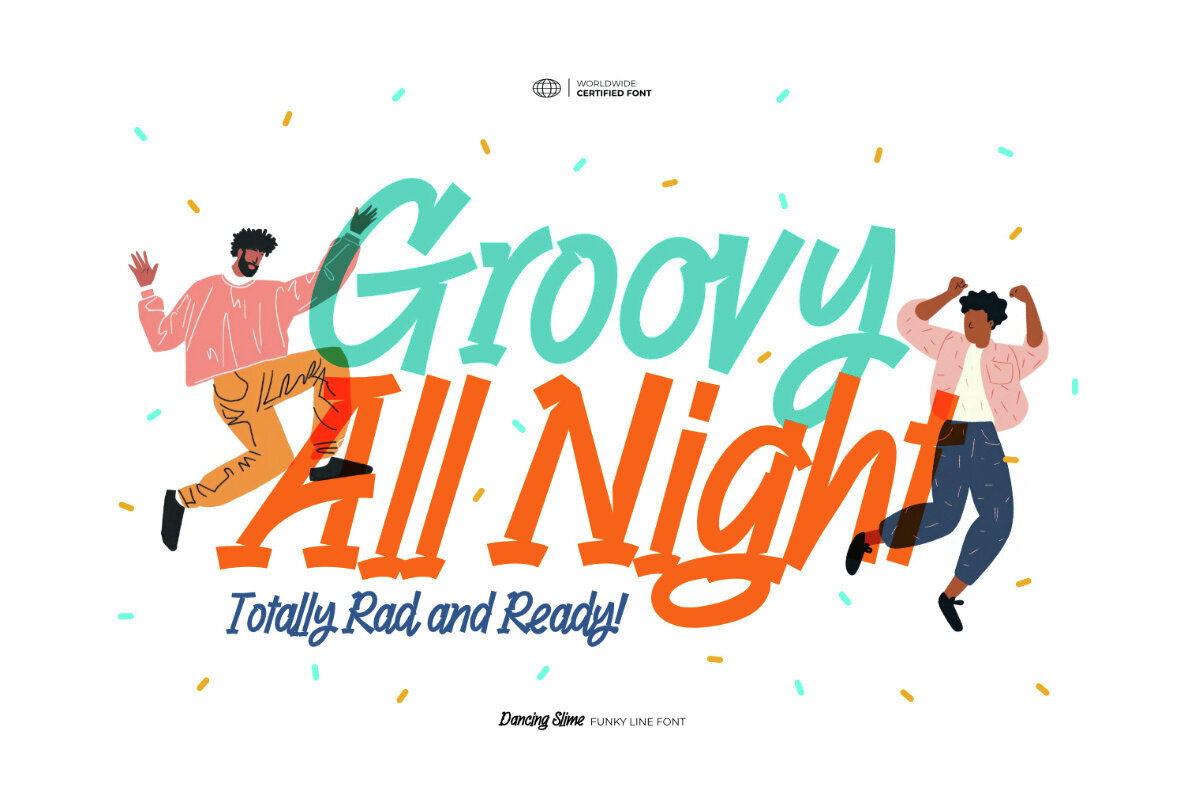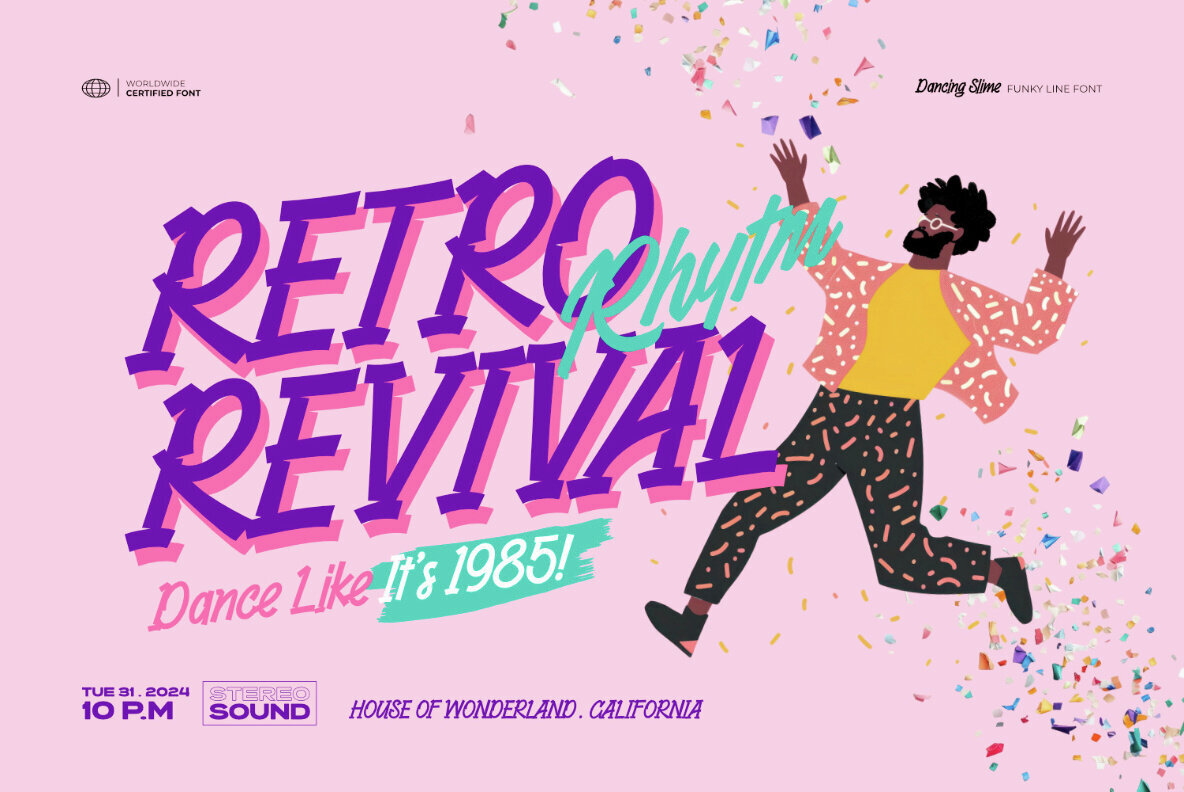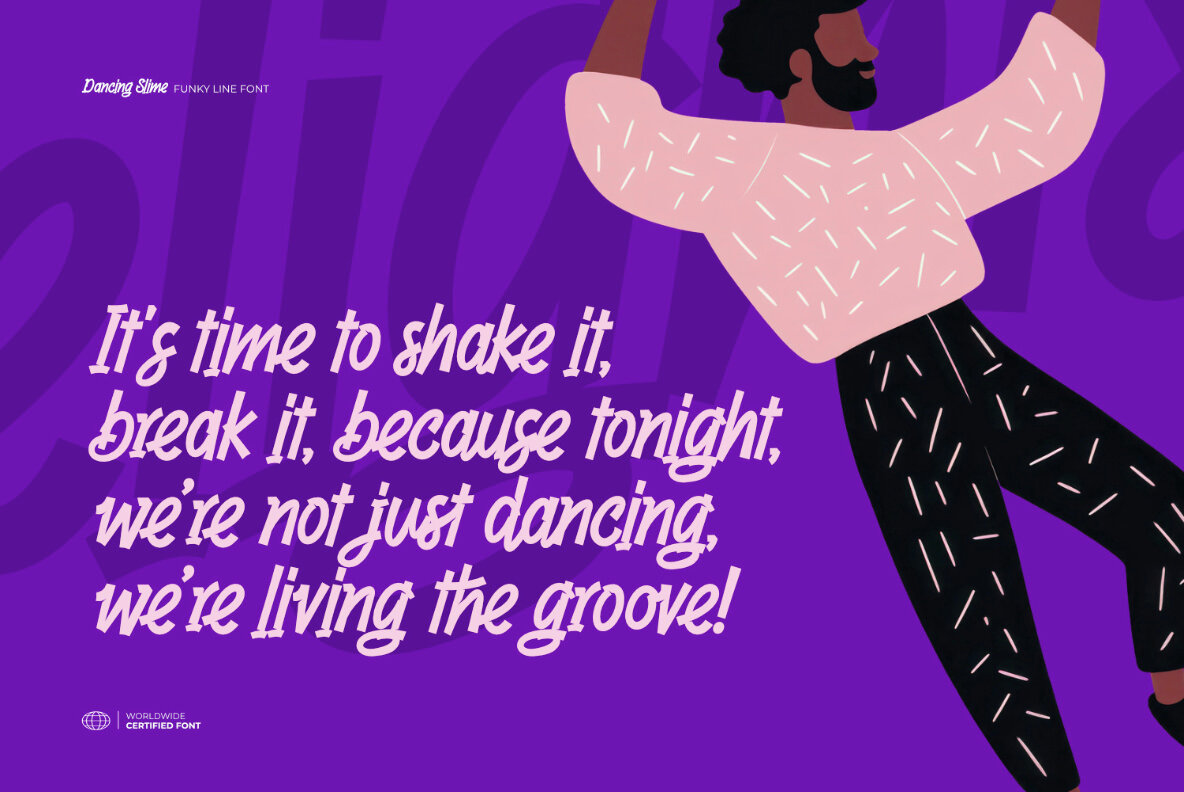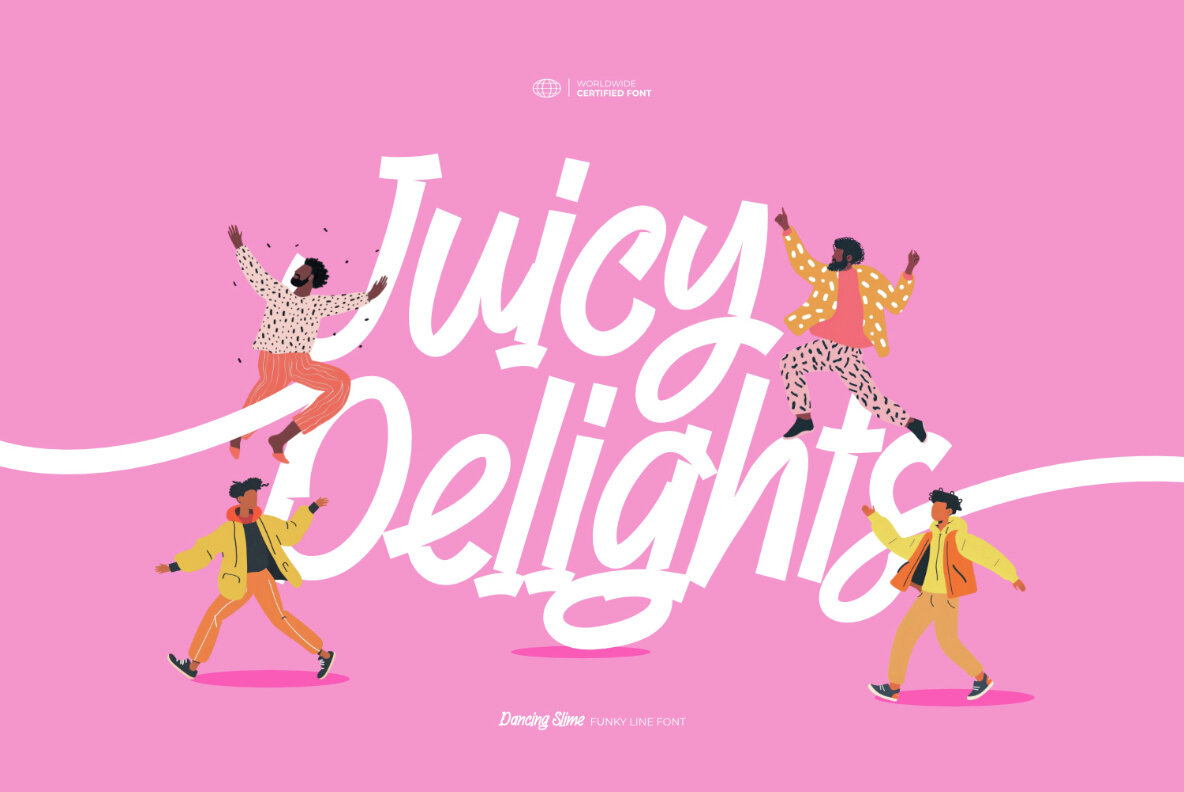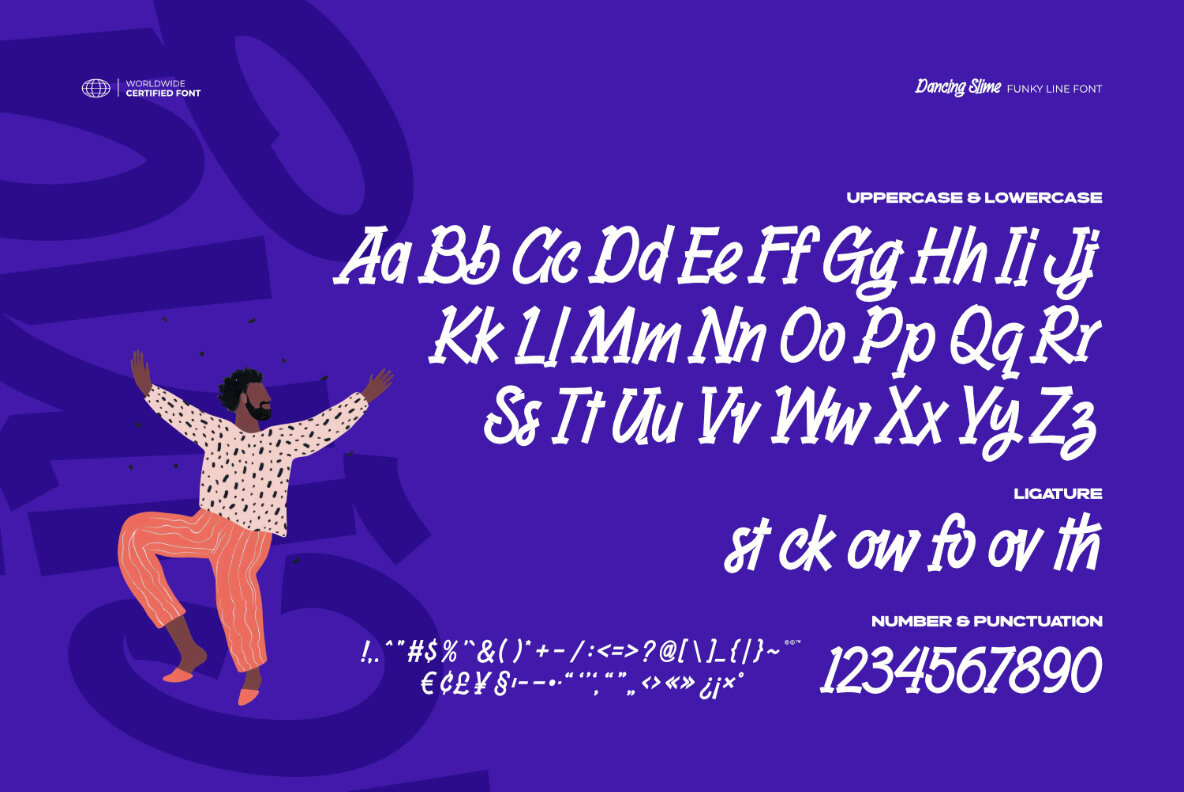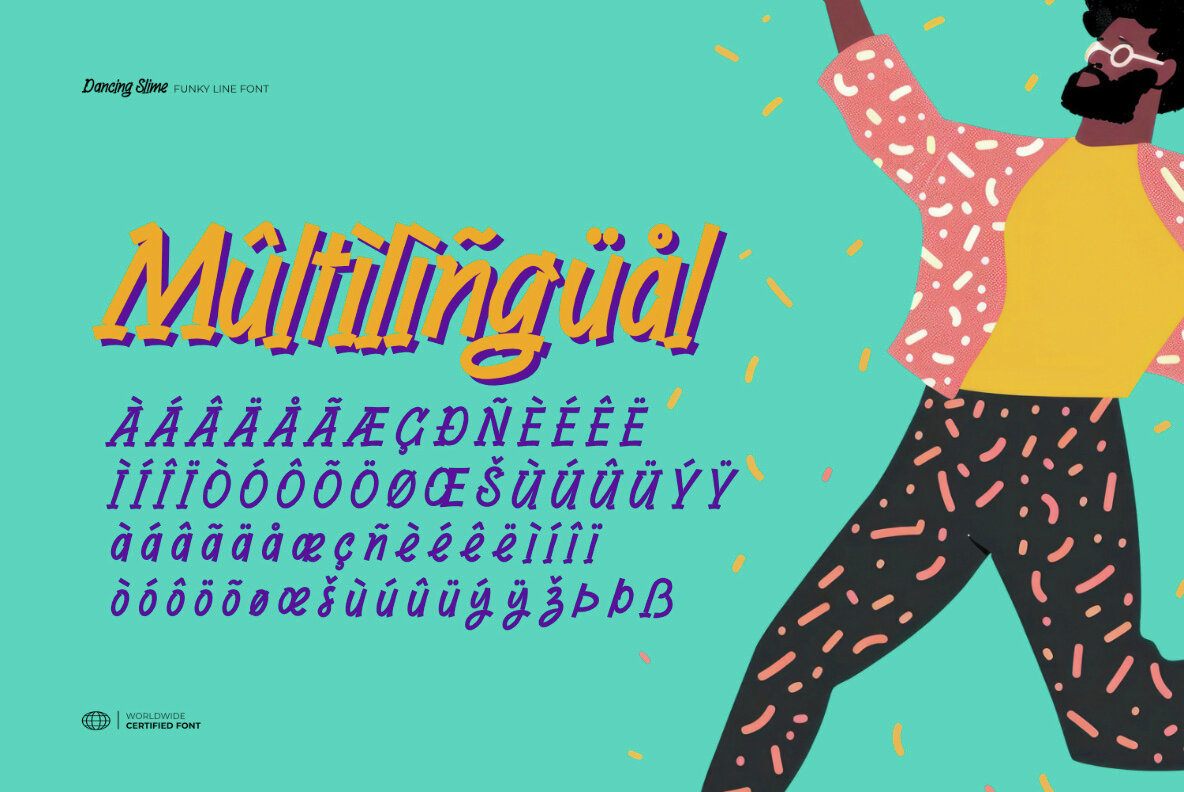
Dancing Slime Font
Dancing Slime
Dancing Slime is a funky line font that injects personality and a retro flair into your designs. With bold, hand-drawn script strokes, this font embodies cheerful energy and an 80s vibe, making it suitable for projects seeking a touch of modern retro wave aesthetics. Its playful and groovy flow captures carefree creativity, offering a dynamic solution that's both nostalgic and fresh.
Ideal for a range of creative projects, Dancing Slime thrives in animated ads, posters, flyers, book covers, and packaging. Wherever you need a splash of funky fun, this font delivers. Key features include uppercase and lowercase letters, numbers and punctuation, ligatures, and multilingual support. Compatible with both PC and Mac, it's a versatile choice for designers seeking a lively and distinctive typeface.